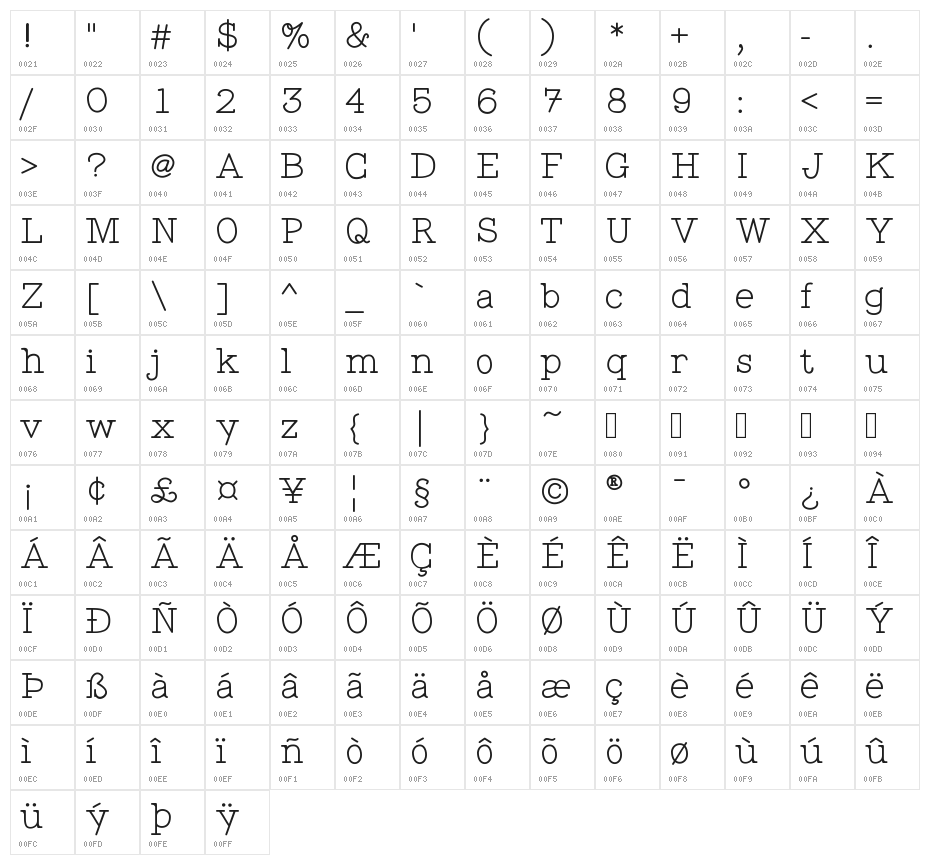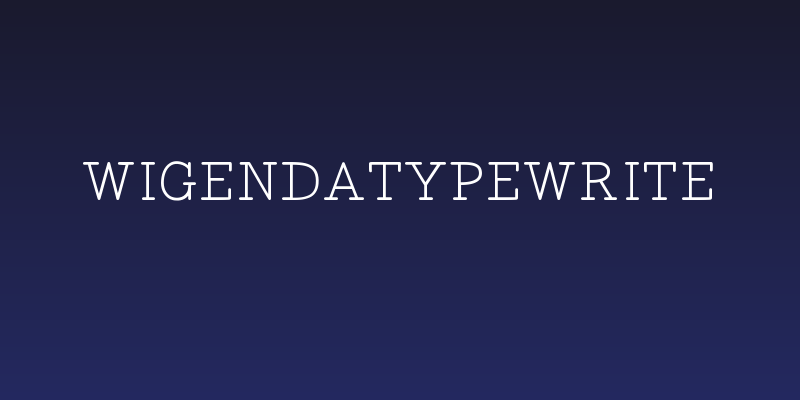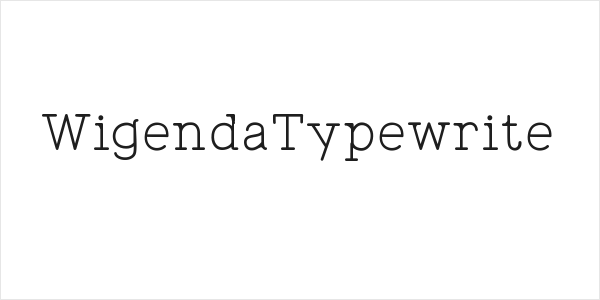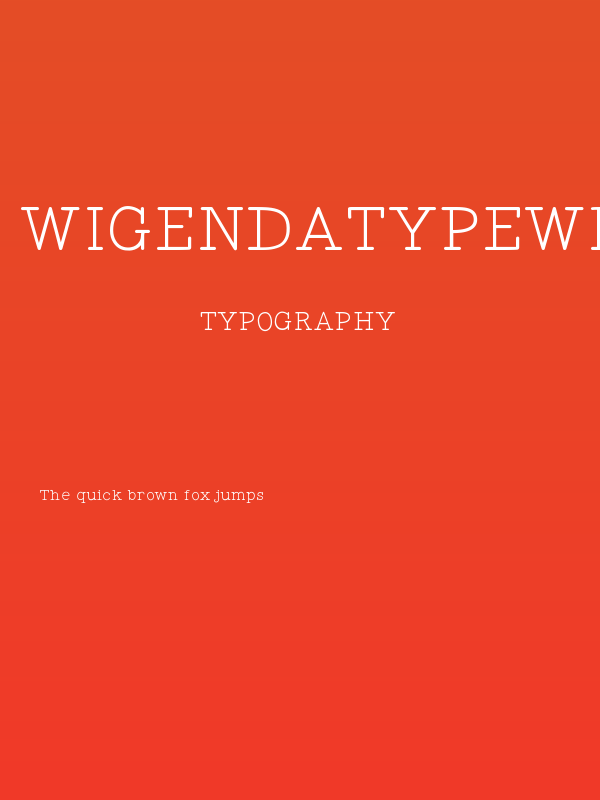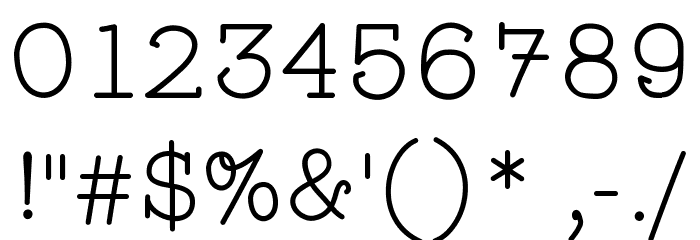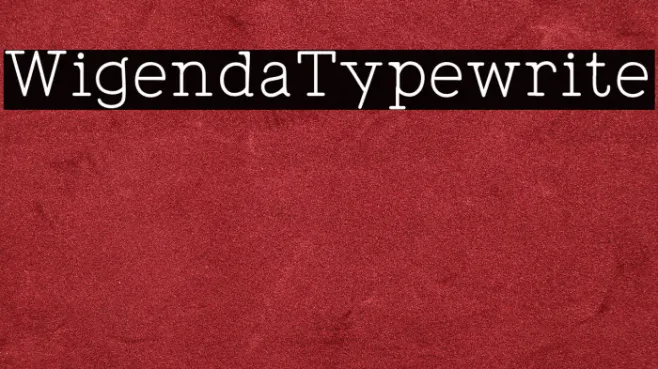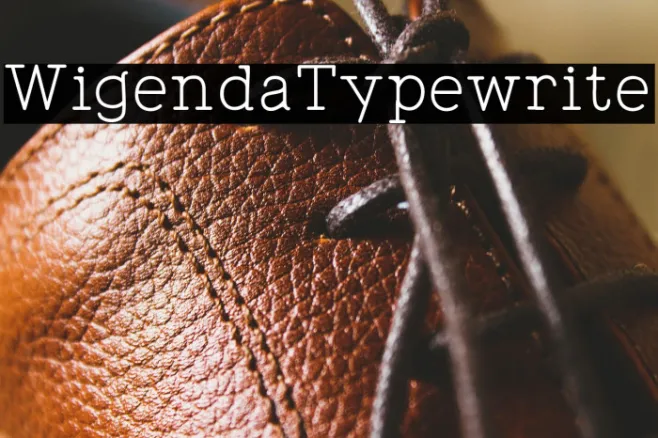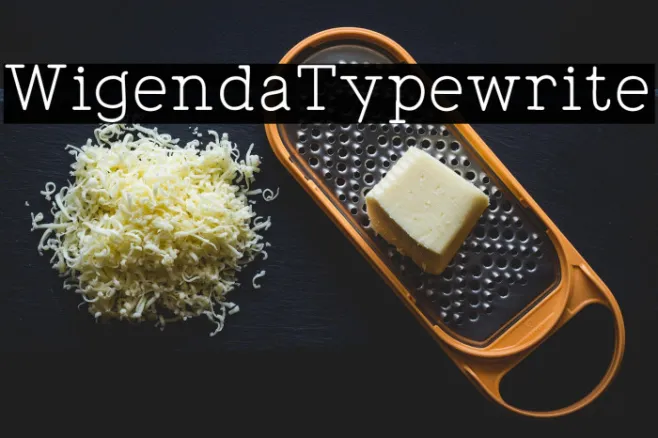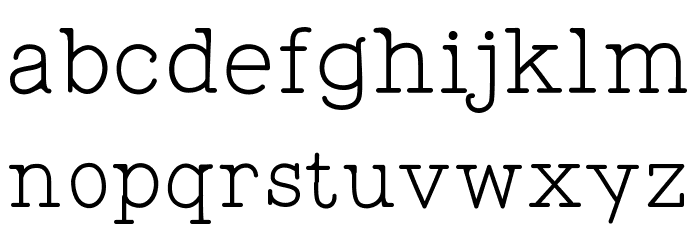
WigendaTypewrite Font
WigendaTypewrite Description
This typeface exudes a classic typewriter charm, characterized by its monospaced design where each character occupies the same amount of horizontal space. The letters are clean and straightforward, with a slight curvature that adds a touch of softness to the otherwise mechanical appearance. The uppercase letters are bold and prominent, while the lowercase letters maintain a consistent height, ensuring readability. Numbers and special characters are designed with the same attention to detail, making them easily distinguishable. The font's uniformity and simplicity make it ideal for conveying a vintage or retro aesthetic, reminiscent of old typewritten documents.
| Proposed Projects | Ideal for projects that require a retro or vintage look, such as posters, book covers, or branding for nostalgic-themed products. |